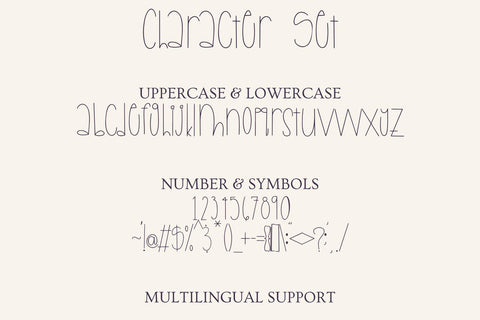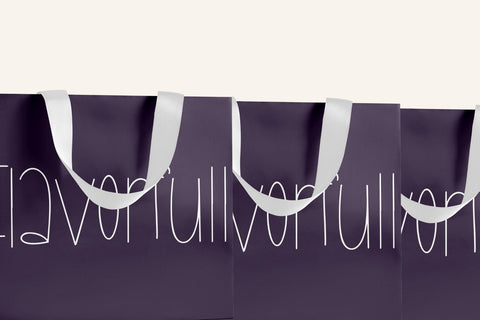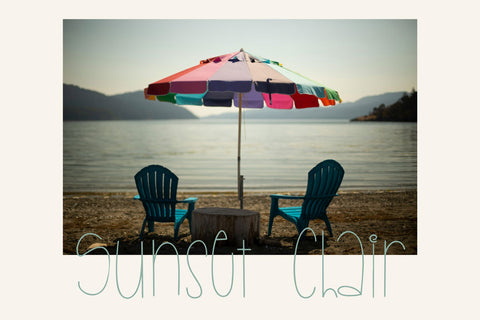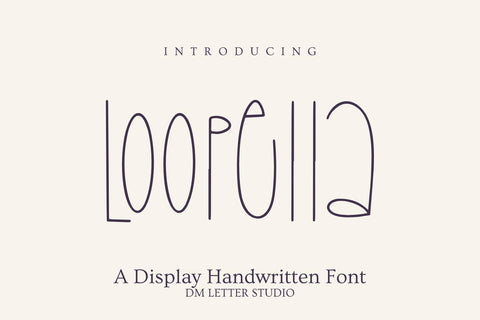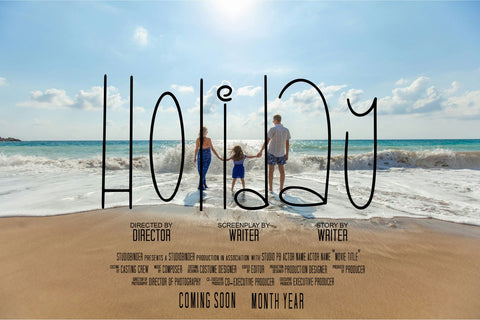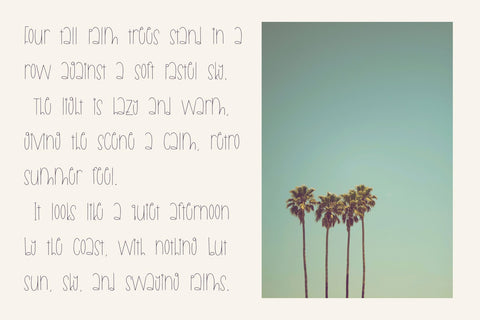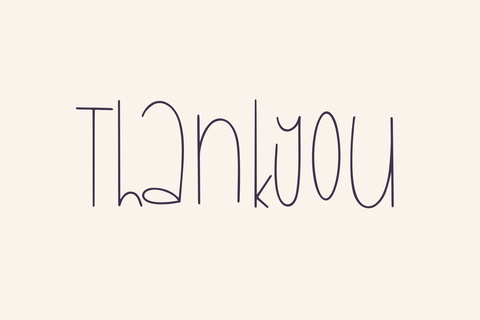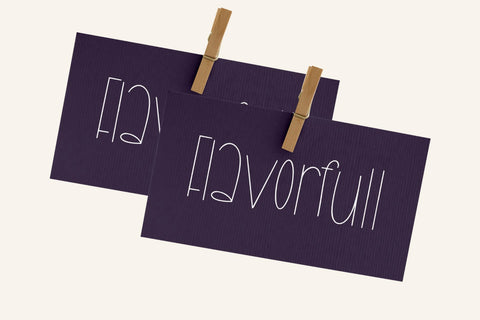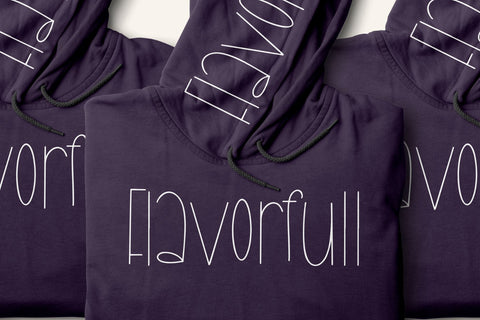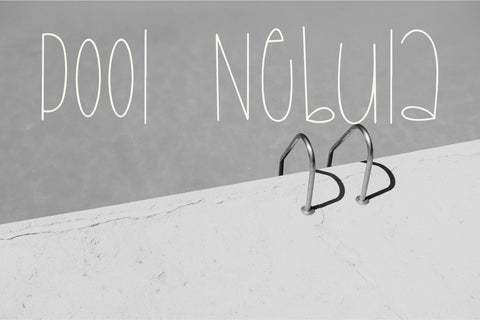
Loopela Font
Meet Loopela Font
Loopela Font is a playful, rounded display with lively loops and smooth strokes. Letters feel friendly and confident, so titles read fast on mobile and print. Because the shapes are thick and clean, your words pop on shirts, stickers, thumbnails, packaging, and party kits. Use it for kids’ brands, summer drops, planners, and cheerful social posts. Moreover, Loopela Font pairs well with a simple sans for captions, which keeps layouts tidy.
Where Loopela Font shines
Set short phrases like “Good Vibes,” “Happy Day,” or a first name. Then add outlines, sticker borders, or soft shadows for instant depth. Since spacing is tuned for headlines, designs come together in minutes. As a result, you can launch full bundles for printables, POD, and reels with less editing. Plus, the rounded rhythm keeps names clear on tags and labels.
Fast setup, bright results
Design tips for Loopela Font
Keep copy short and let the letterforms lead. Pair big Loopela headlines with a neutral geometric sans for specs and pricing. Meanwhile, use layered fills for a puffy sticker effect, or add tiny stars and smileys for quick icon sets. Because the forms are rounded, glitter textures, pastel gradients, and soft glow work very well. However, avoid long sentences on tiny labels. Names, dates, and bold words hit hardest.
Why creators choose Loopela Font
You want happy energy with clear readability. Loopela delivers. It grabs attention in crowded feeds, speeds production, and scales from mini stickers to posters without losing charm.